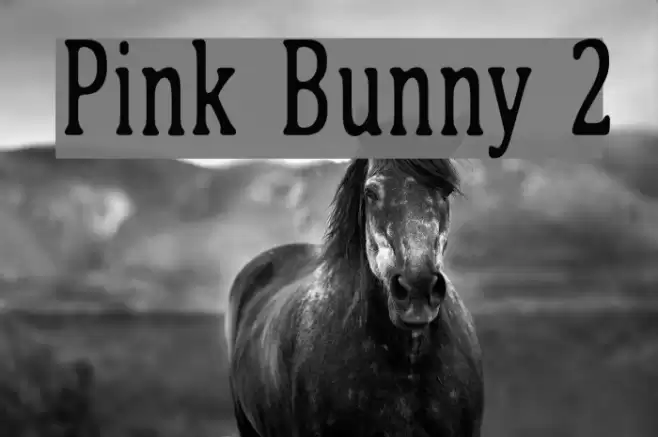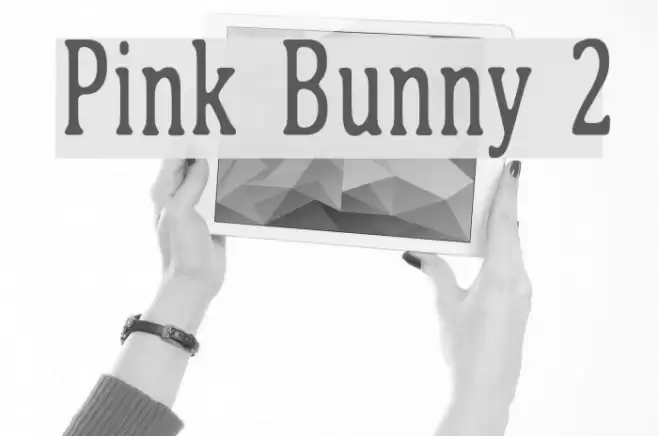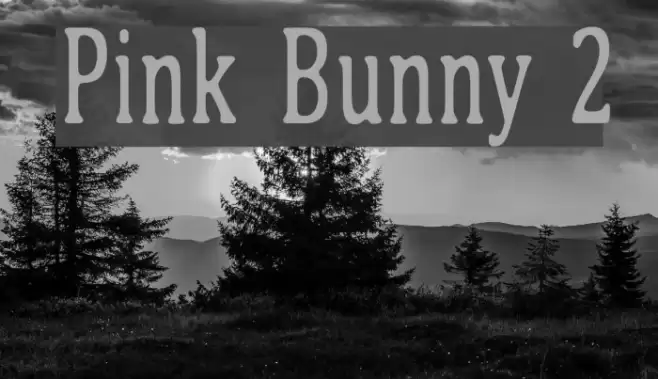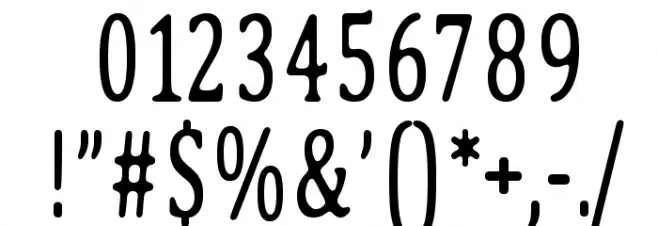
Pink Bunny 2 Font
Pink Bunny 2 Description
This font features a classic serif style with a slightly playful and whimsical touch. The letters are well-defined with moderate stroke contrast, giving it a traditional yet approachable appearance. The serifs are pronounced, adding a touch of elegance and readability. The uppercase letters are tall and commanding, while the lowercase letters maintain a consistent and harmonious flow. The numerals are clear and distinct, making them suitable for various applications. Special characters are well-integrated, maintaining the overall aesthetic of the font. This font is versatile, suitable for both formal and informal contexts, and can be used effectively in a variety of design projects.
A classic serif font with a playful touch and moderate contrast from Uncategorized fonts.
- Overall Style: Classic